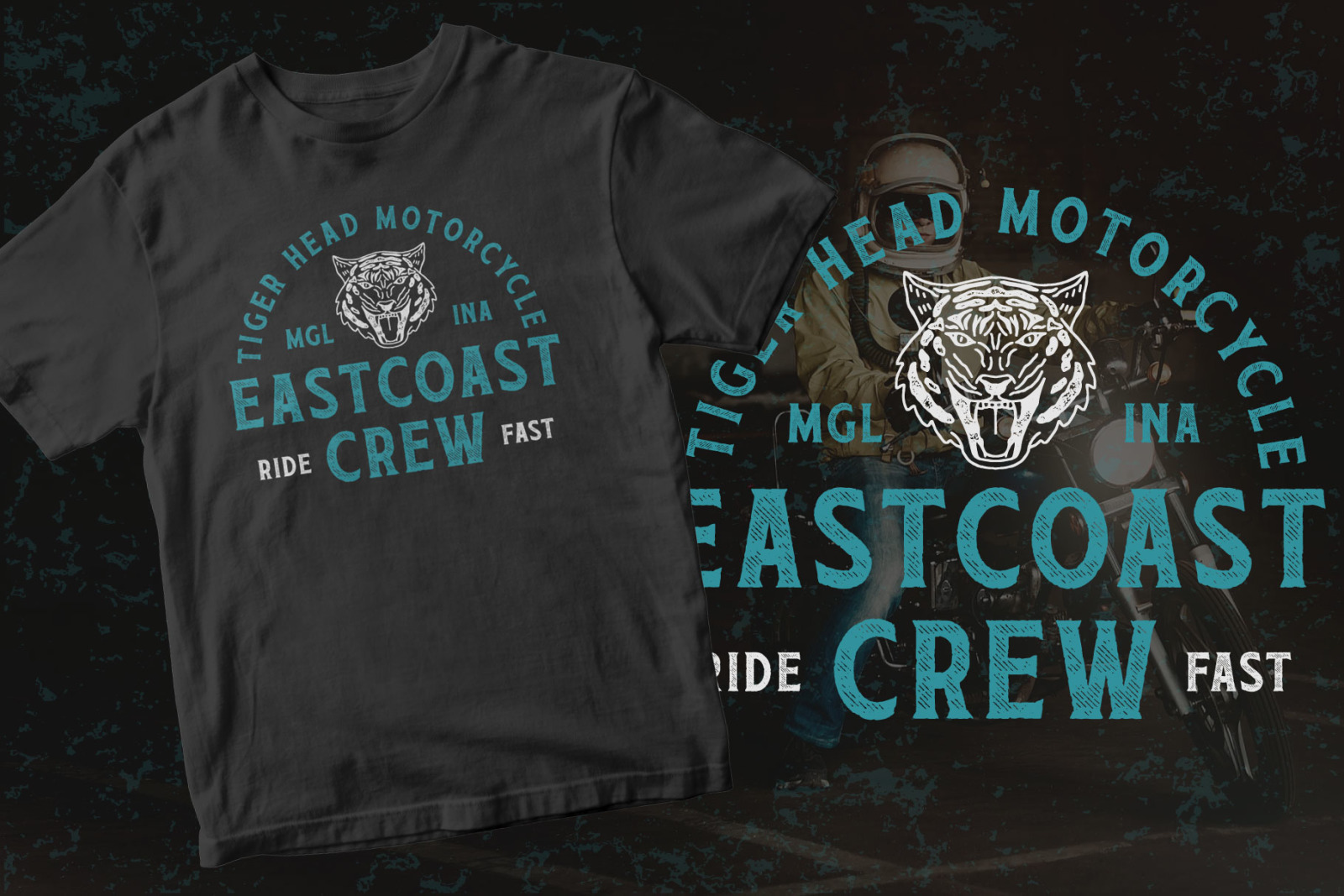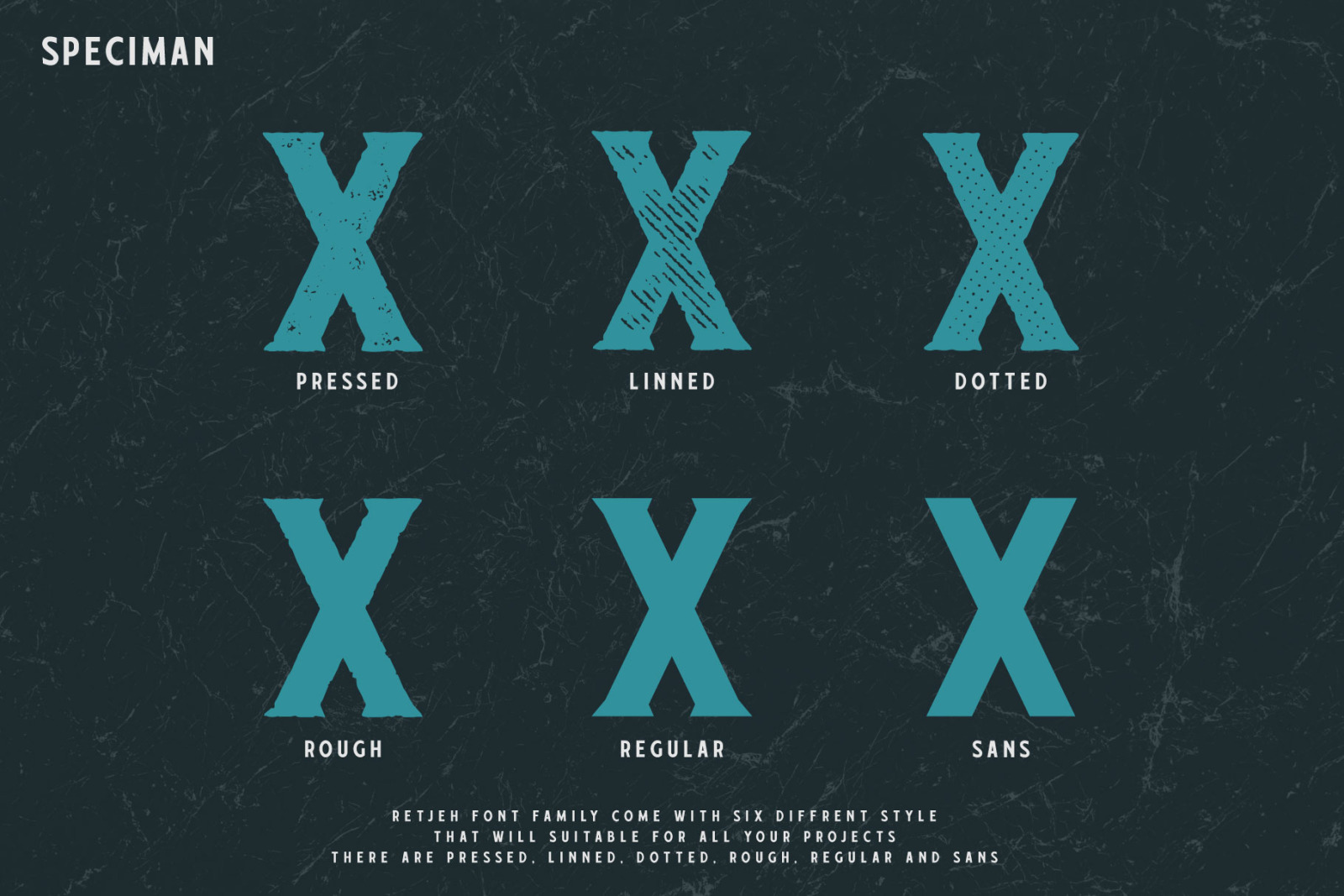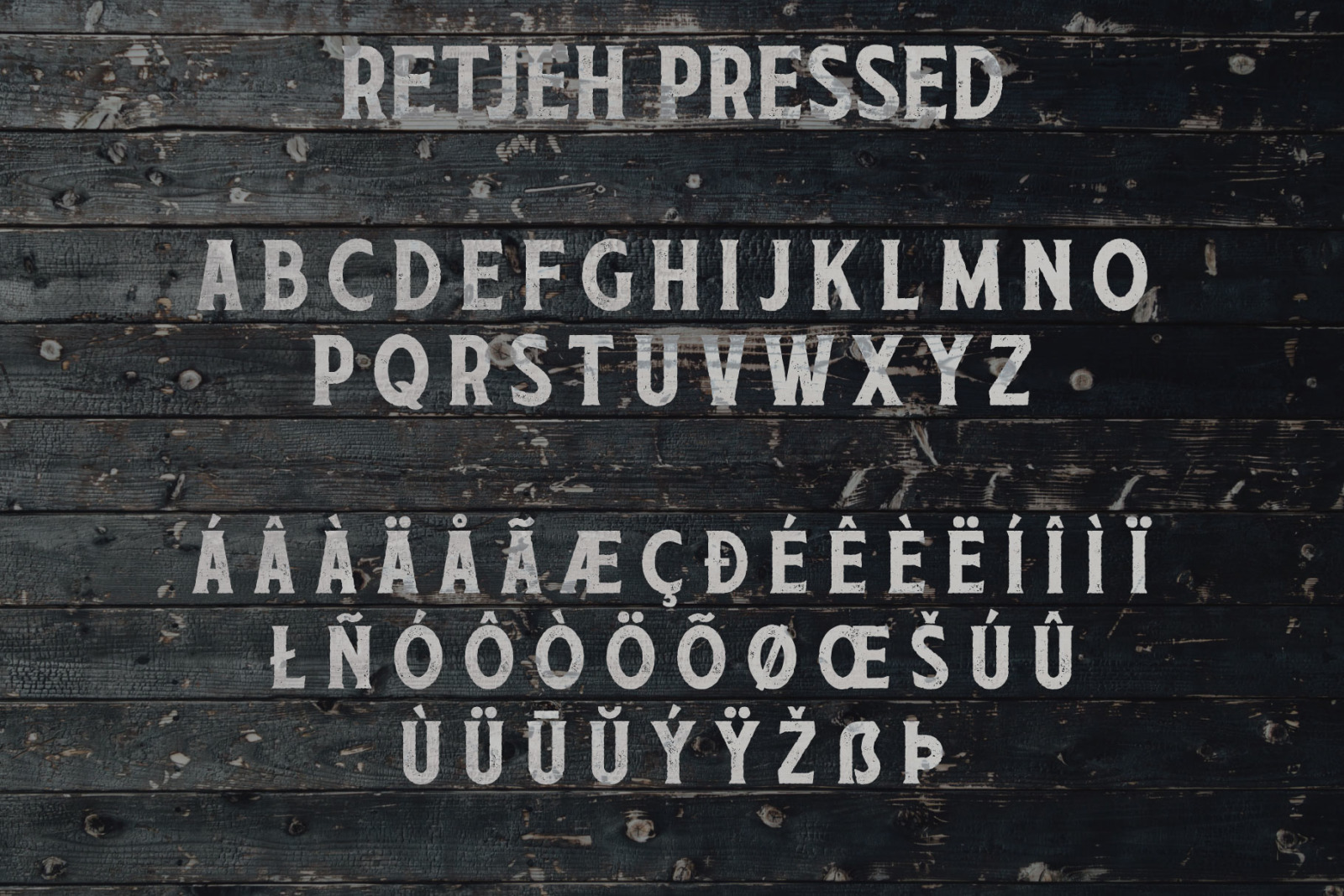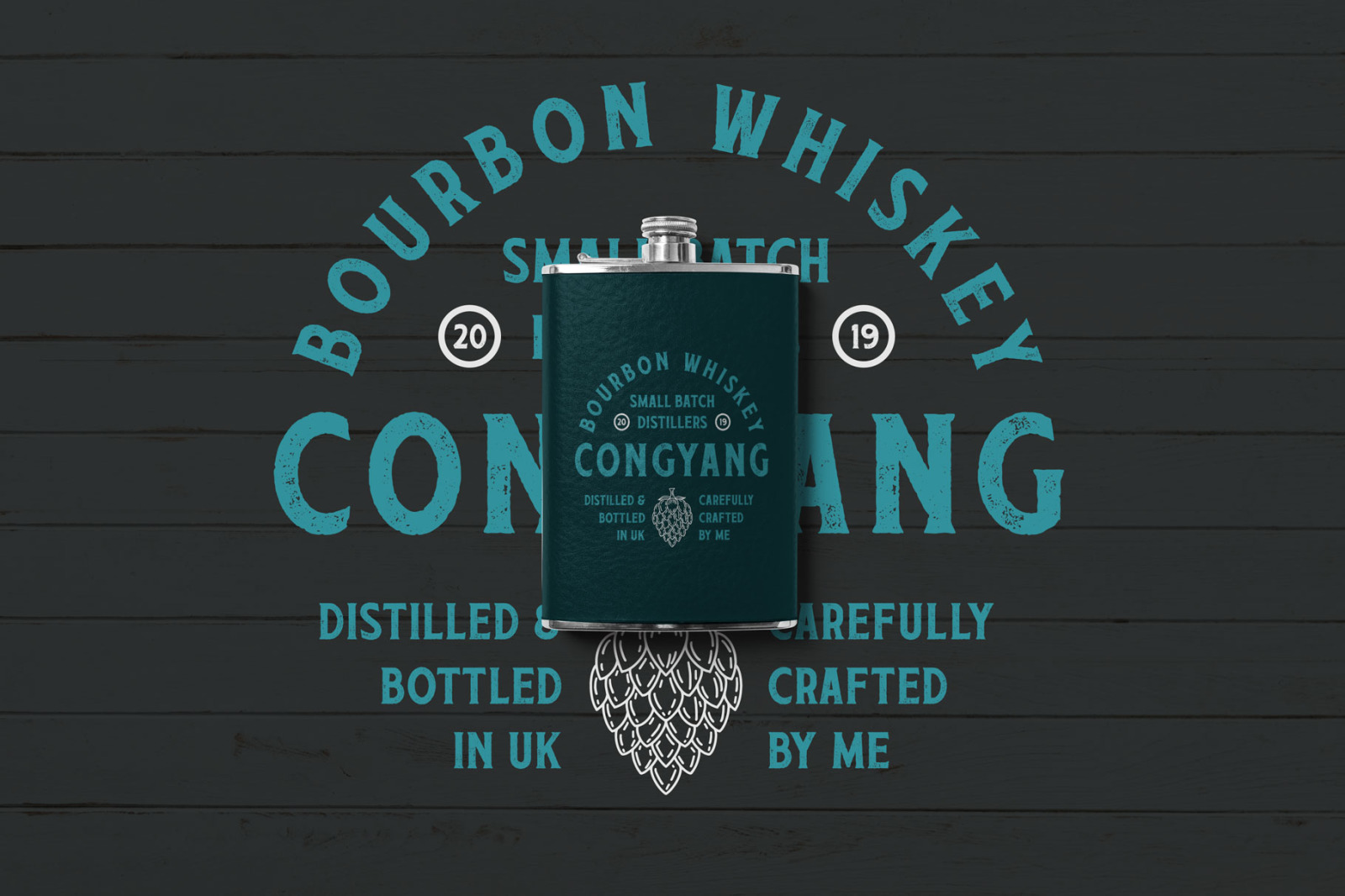
Retjeh Font
Retjeh is an all uppercase vintage font which is inspired by western lettering from the industrial and good old past, but it still has a strong modern appearance. It's allows versatile design options and works perfectly for headlines, logos, posters, packaging, T-shirts, postcards and much more.
Font Features :
- Character set A-Z
- Numerals
- Punctuation
- Multilingual